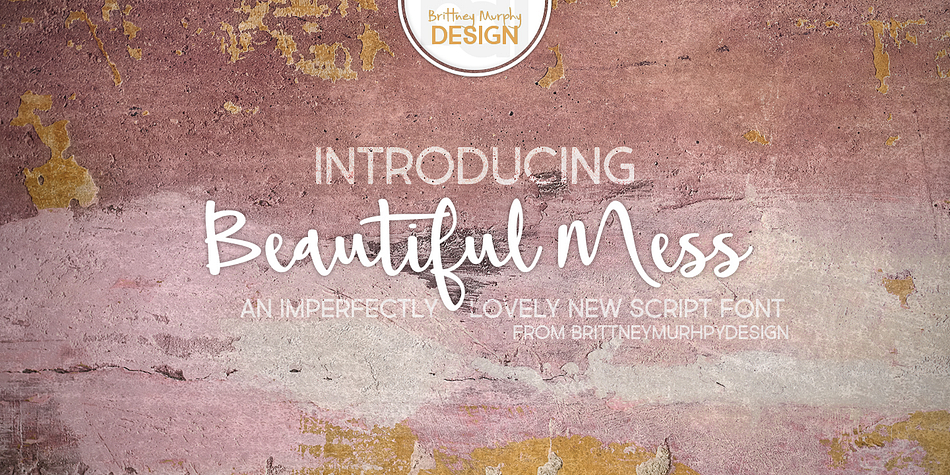
Beautiful Mess
Beautiful Mess is a hand drawn font published by Brittney Murphy Design.
Beautiful Mess is a lovely, if slightly messy, hand-drawn script font. Comes with Latin and extended Latin characters, 357 in all.